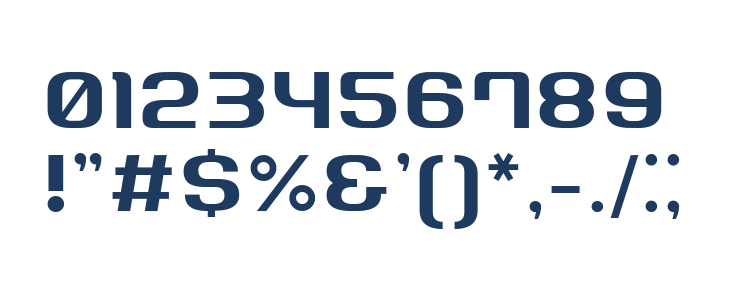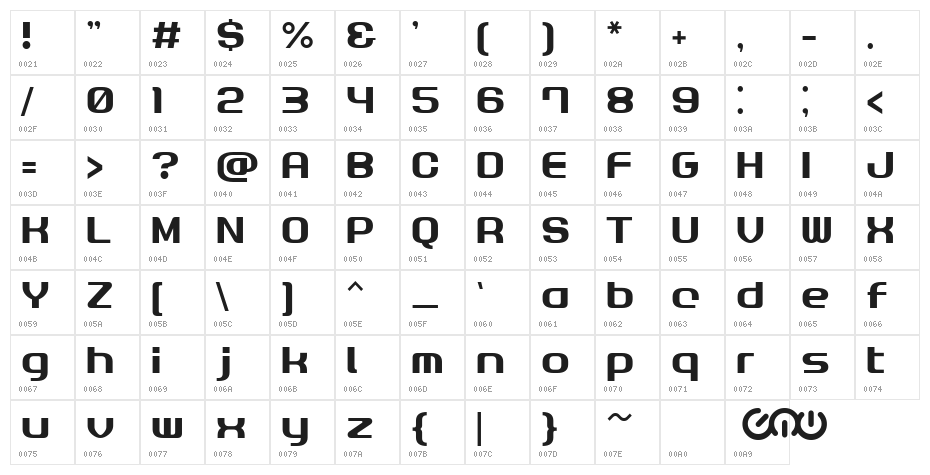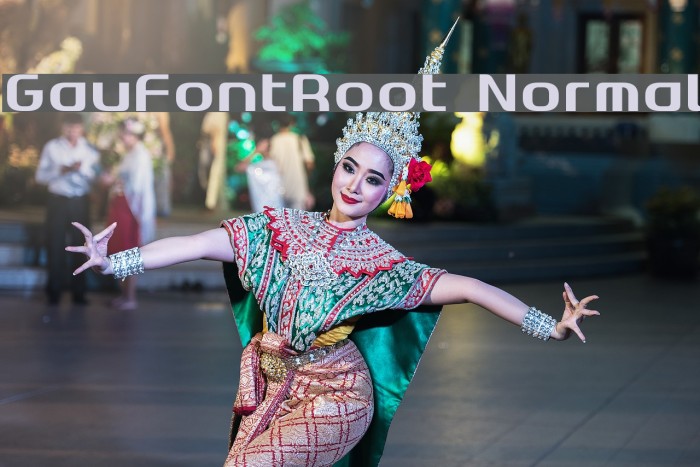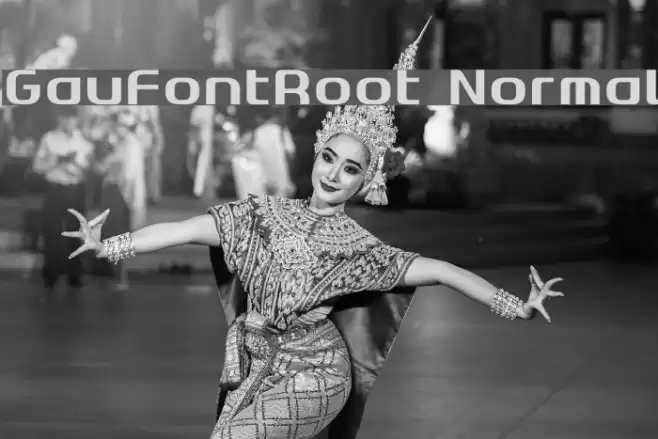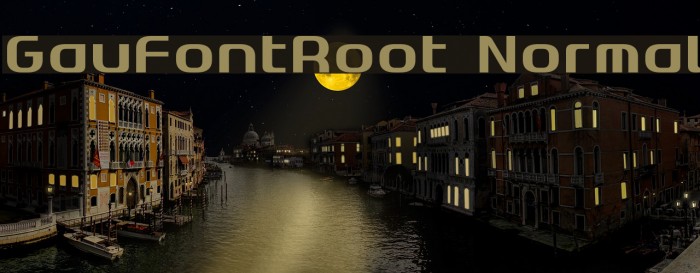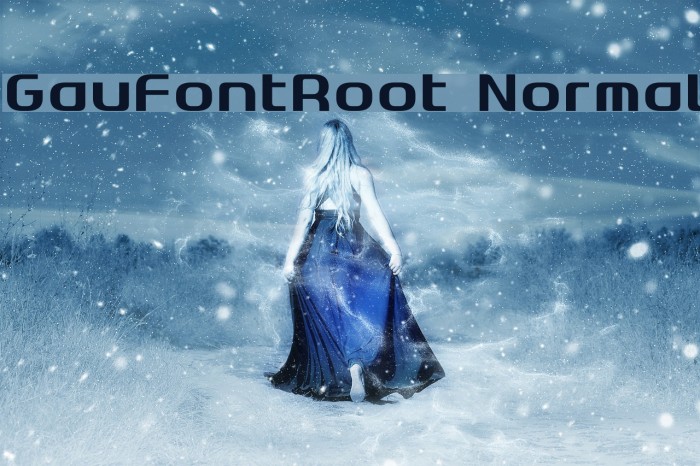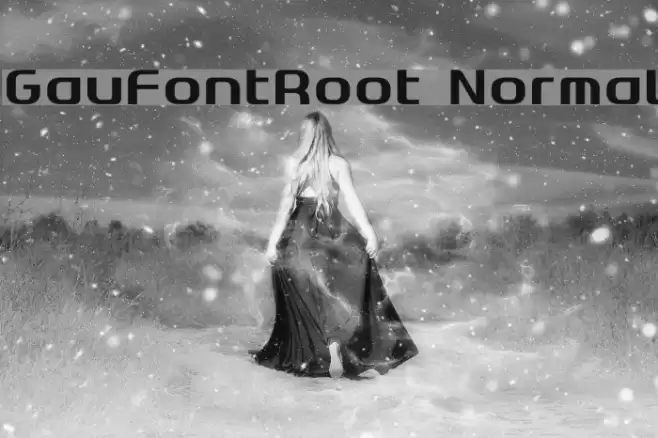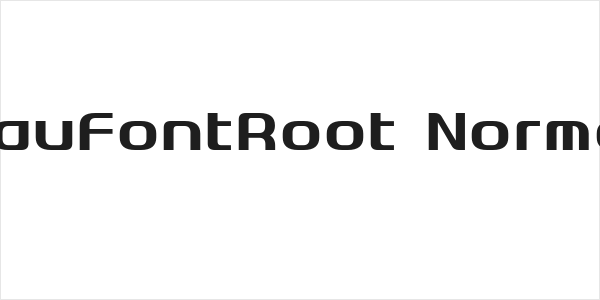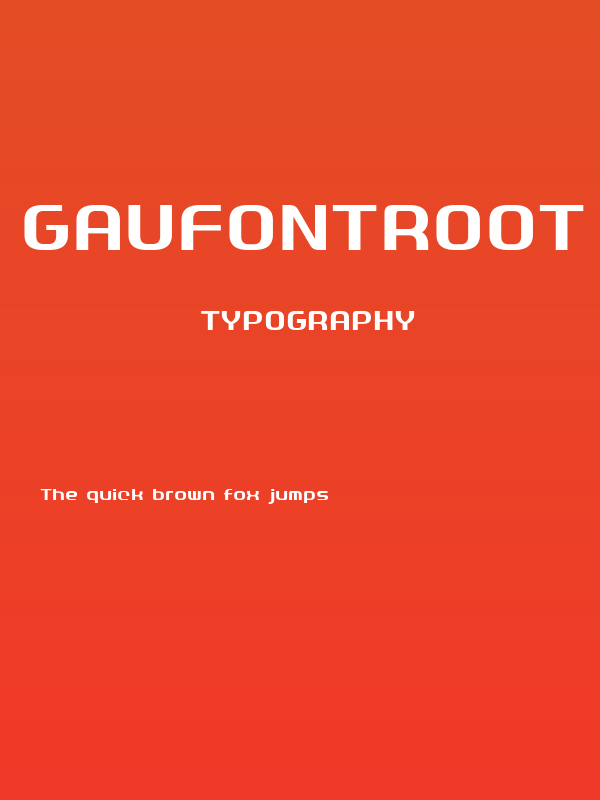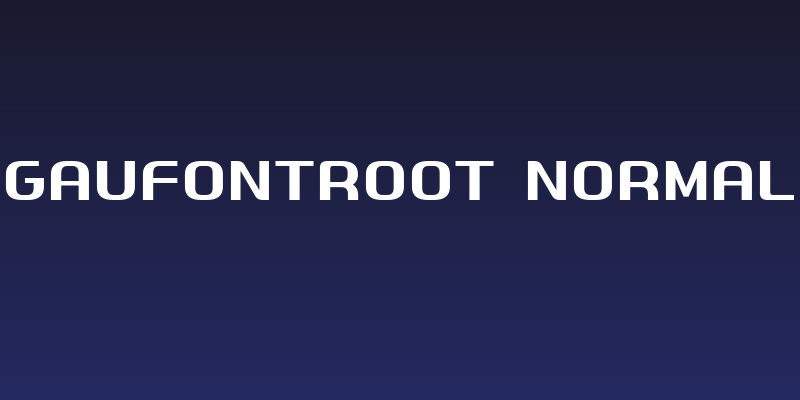
GauFontRoot Normal Font
GauFontRoot Normal Description
This font features a modern and clean design with rounded edges and a geometric structure. The characters are uniform in width, giving it a monospaced appearance, but with a touch of softness due to the rounded corners. The uppercase and lowercase letters maintain a consistent style, with a slight variation in the height of the lowercase characters. The numerals are clear and easy to read, matching the overall aesthetic of the alphabet. Special characters are well-integrated, maintaining the same rounded and geometric style. This font is versatile, suitable for both digital and print media, offering a contemporary look that is both professional and approachable.